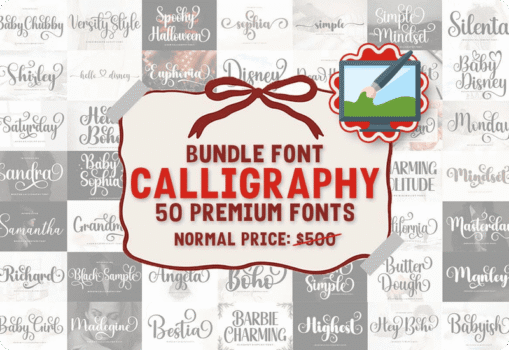
A complete calligraphy font toolkit for fast, professional design
The Calligraphy Font Bundle delivers 50 premium typefaces covering script, signature, serif, sans serif, and display styles. Created for craft cutters and design apps alike, this collection gives you elegant signatures, friendly handwritten looks, clean text families, and eye‑catching display letters — all tuned for Cricut, Silhouette, and everyday DIY projects. Use them for brand kits, invitations, logos, packaging, social graphics, signage, labels, greeting cards, and merchandise with consistent quality across print and digital.
What’s inside — 50 premium fonts by PriorityType
From graceful scripts to cozy handwritten sets, you’ll have a solution for weddings, seasonal campaigns, apparel, signage, and more. Included titles:
Christian, Silenta, Baby Disney, Dear Heart, Baby Chubby, Hello Disney, Hello Boho, Barbie Charming, Charming Solitude, Bonita, Highest, Richard, Spooky Halloween, Sandra, Baby Girl, Samantha, Humanity, Handmade, Madegine, Wonderful, Black Sample, Boho, Grandma, Babyish, Monday, Euphoria, Simple, Raleigh, Black Simple, Baby Sophia, Gaelyn, Magnolia, Shirley, Bestia, Saturday, Angela, Montana, Aurelia, Hey Boho, Versity Style, Hipster, California, Sophia, Masterday, Mindset, Daylight, Butter Dough, Manley, Disney, Simple Mindset.
Use case snapshot: Classic signatures for brand marks, bouncy scripts for birthday tees, elegant flourishes for wedding suites, friendly handwriting for classroom printables, and festive letterforms for holiday products.
Popular projects & ideas
- Branding & logos: Pair a clean sans (e.g., Angela or Bestia) with a script signature (e.g., Christian or Samantha) for balanced wordmarks.
- Invitations & stationery: Use Dear Heart or Aurelia for names and headlines; combine with Raleigh or Magnolia for supporting text.
- Apparel & merchandise: Try Spooky Halloween for seasonal tees, Hello Boho for boho quotes, or Hipster for retro labels.
- Social media & ads: Create scroll‑stopping headings for Instagram, TikTok, and Pinterest using contrasting script + sans pairs.
- Labels & packaging: Choose Grandma or Bonita for artisan food labels; use California or Montana for outdoor brands.